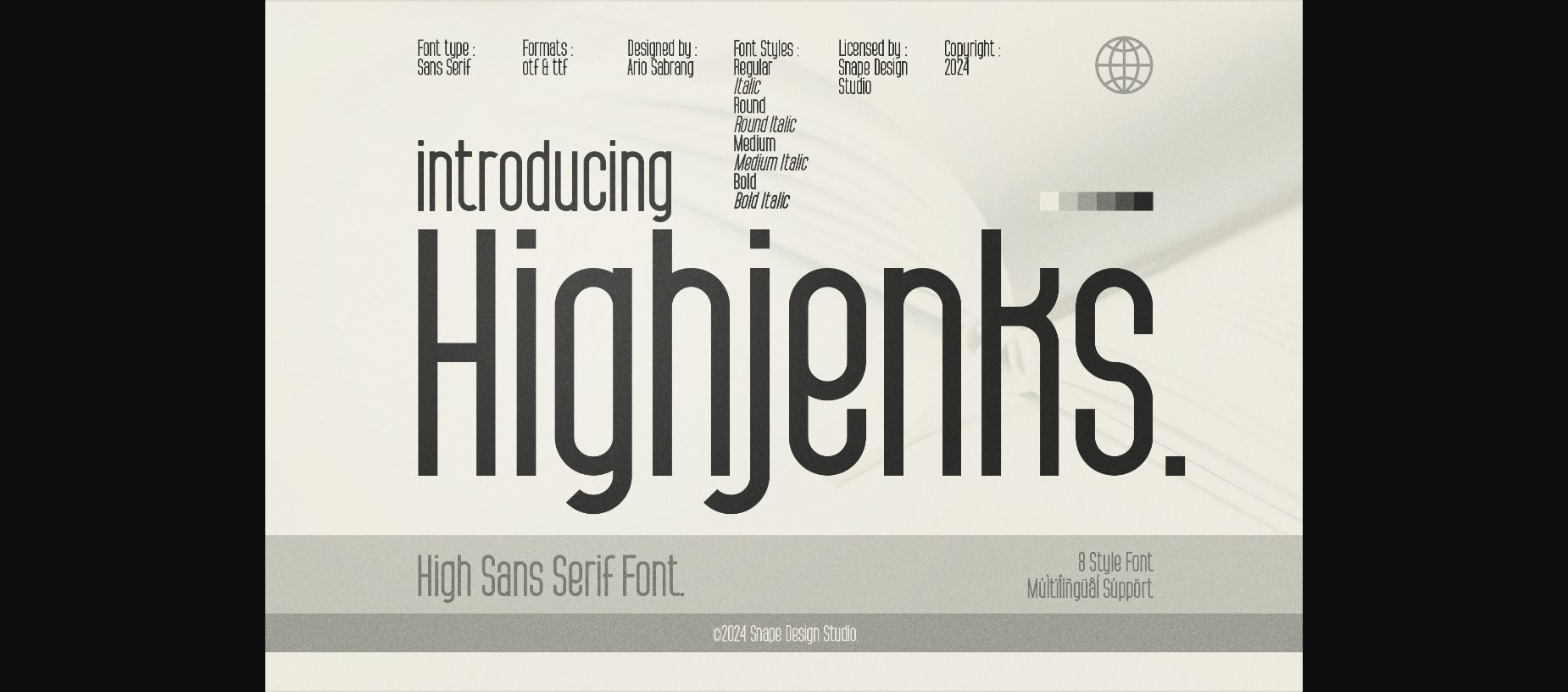
About Highjenks Font
Highjenks, a high sans serif font, exudes modernity and confidence with its sleek design. Its clean lines and sharp angles make it perfect for headlines and branding projects, offering versatility and impact in various design contexts. Ideal for those seeking a contemporary edge, Highjenks adds sophistication and style to any project effortlessly.